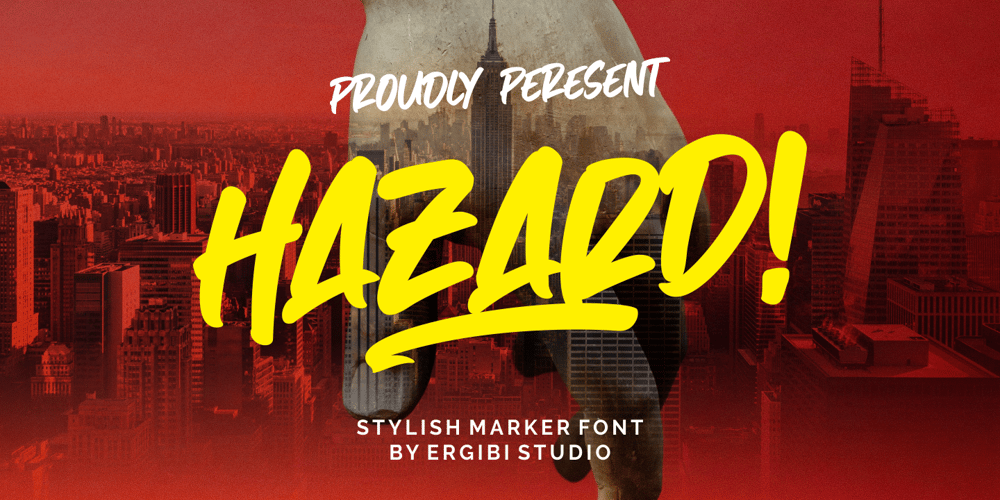
Hazard Font Family was designed by Riyadh Rahman and published by Ergibi Studio. Hazard contains 2 styles and family package options. Introducing Hazard! Stylish Marker Font is a smooth brush font. With a style that looks original, this font has its own uniqueness and when meeting with others will provide a dynamic and pleasant closeness. It is suitable for all your design projects such as quotes, poster designs, personal branding, promotional materials, logos, product packaging, and more. It includes a bonus swash weight to let you add even more to your design.